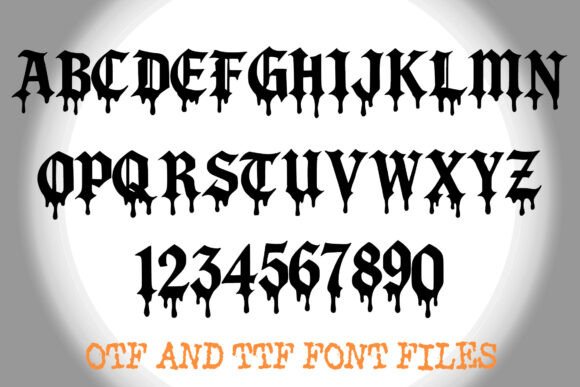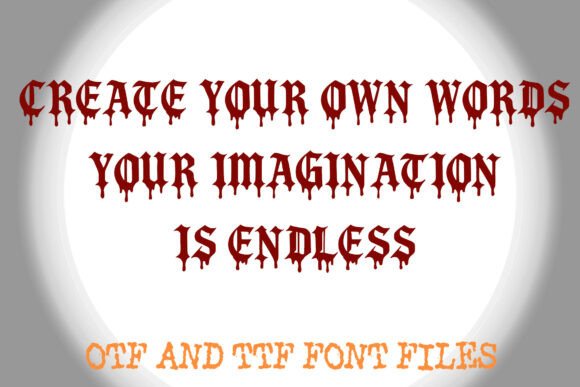
Introduction to Gothic Vampire Font Font
Fonts play a crucial role in design, and the Gothic Vampire Font font is a typeface that brings both character and versatility to any project. Whether you’re working on a branding project, a website, or a print design, the Gothic Vampire Font font offers a unique style that can elevate your work.
Gothic Vampire is a bold blackletter-style display font dripping with gothic drama and horror flair.
Its sharp, medieval letterforms are enhanced by blood-like drips that make it ideal for Halloween-themed designs, horror posters, vampire stories, gothic apparel, and eerie event invitations Available in OTF and TTF formats, this font adds instant atmosphere to any dark or supernatural design.
Key Features of Gothic Vampire Font Font
Why Choose Gothic Vampire Font Font?
The Gothic Vampire Font font is more than just a typeface – it’s a design tool that helps you communicate your message with style and clarity. Its unique character set and versatile design make it suitable for a wide range of applications, from elegant invitations to bold headlines.
With its carefully crafted letterforms and balanced proportions, the Gothic Vampire Font font ensures readability and visual appeal across all mediums.
What makes Gothic Vampire Font font special?
The Gothic Vampire Font font stands out with its unique design, exceptional readability, and versatility across various design applications.